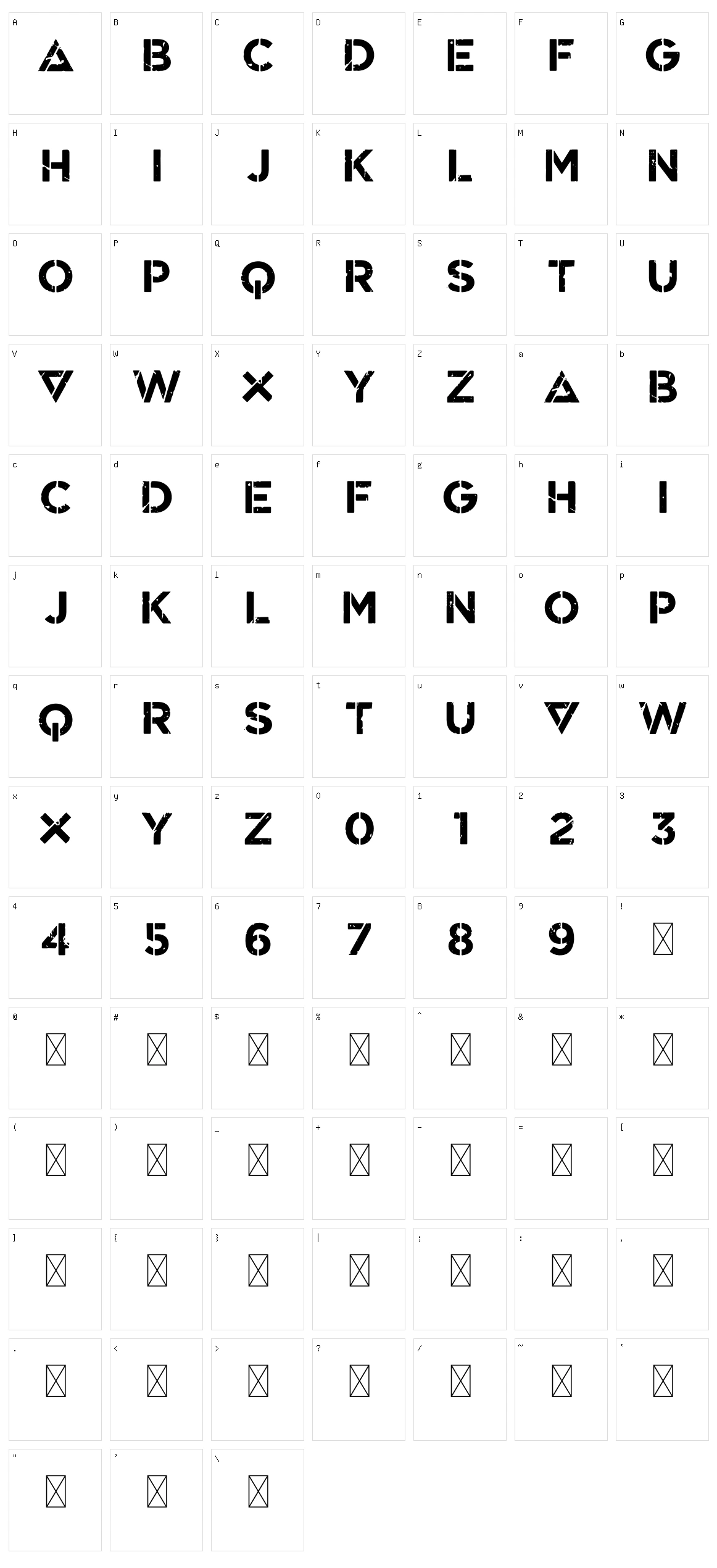
The free font CF Game Of Chaos is carefully designed by Cloutierfontes, showcasing a thoughtful balance of creativity and usability and falls under the Stencil font style. When you download the ZIP file, it contains only 1067.76 KB of font files, making it lightweight and quick to download. Please review the license details below to understand permitted usage and distribution rights. If license information is not available, we recommend using this font for personal projects only or contacting the author directly for commercial usage permissions.